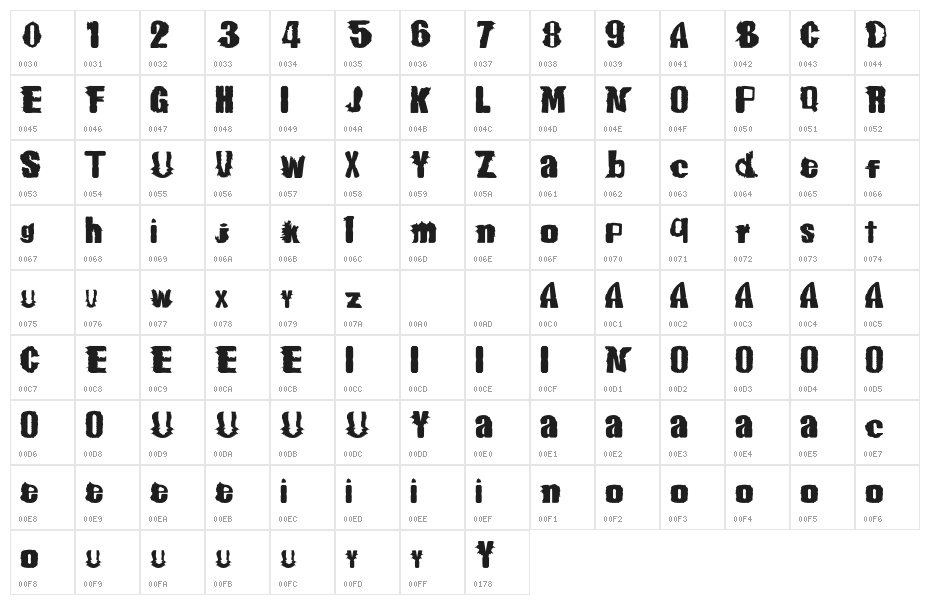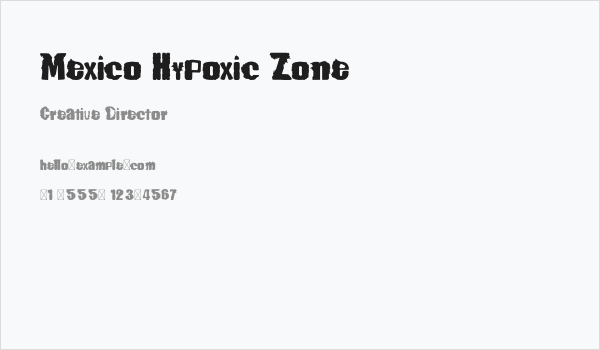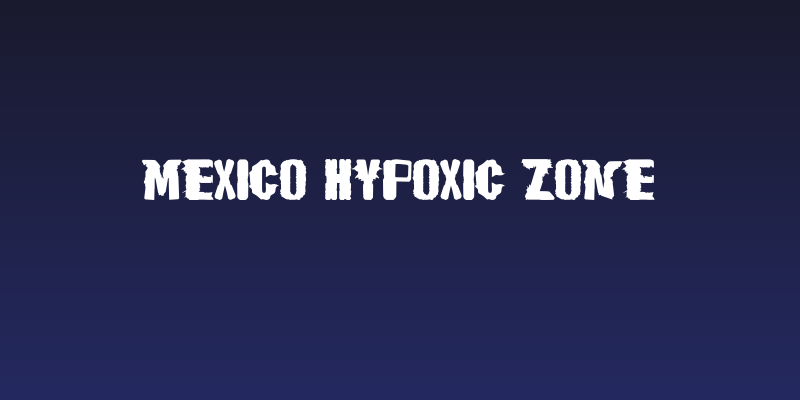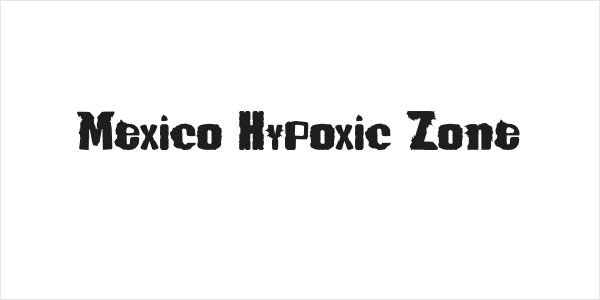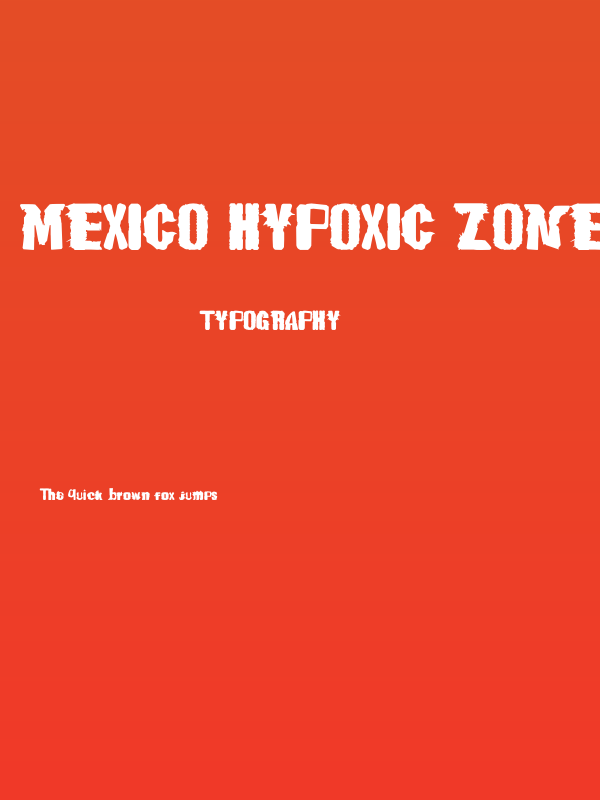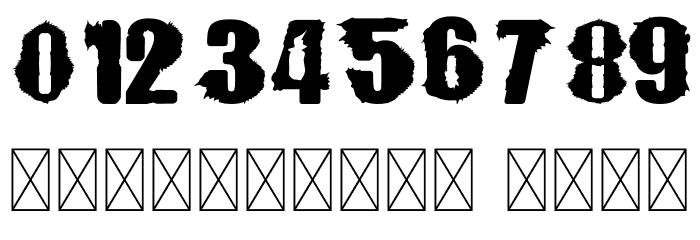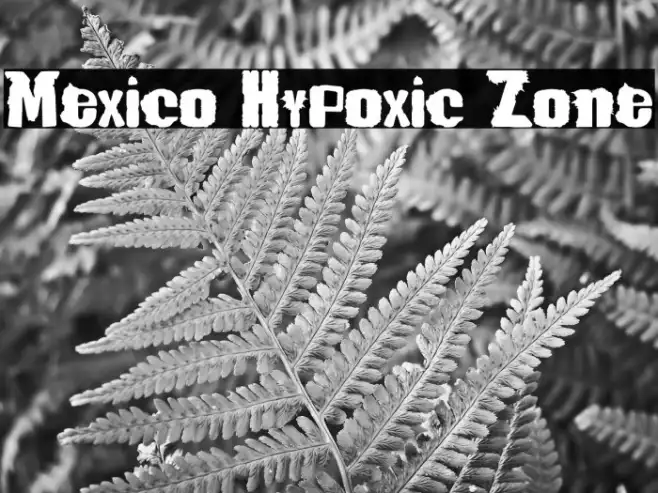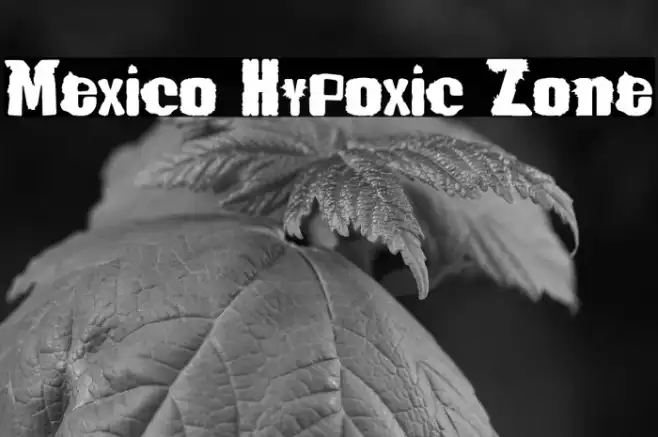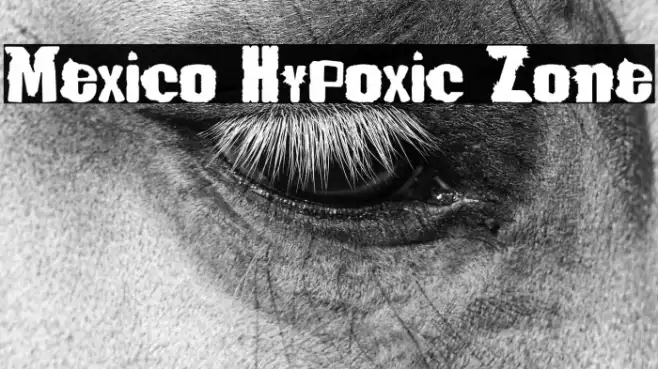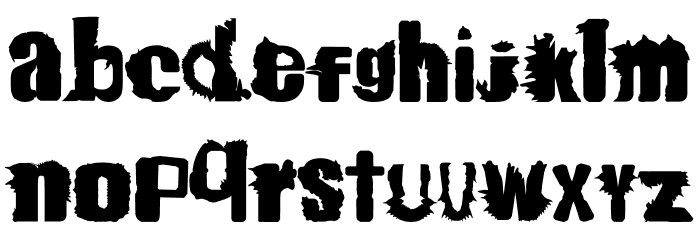
Mexico Hypoxic Zone Font
✎ Distorted Eroded
| Vorgeschlagene Projekte | Ideal for horror-themed posters, edgy album covers, or any project needing a bold, distressed look. |